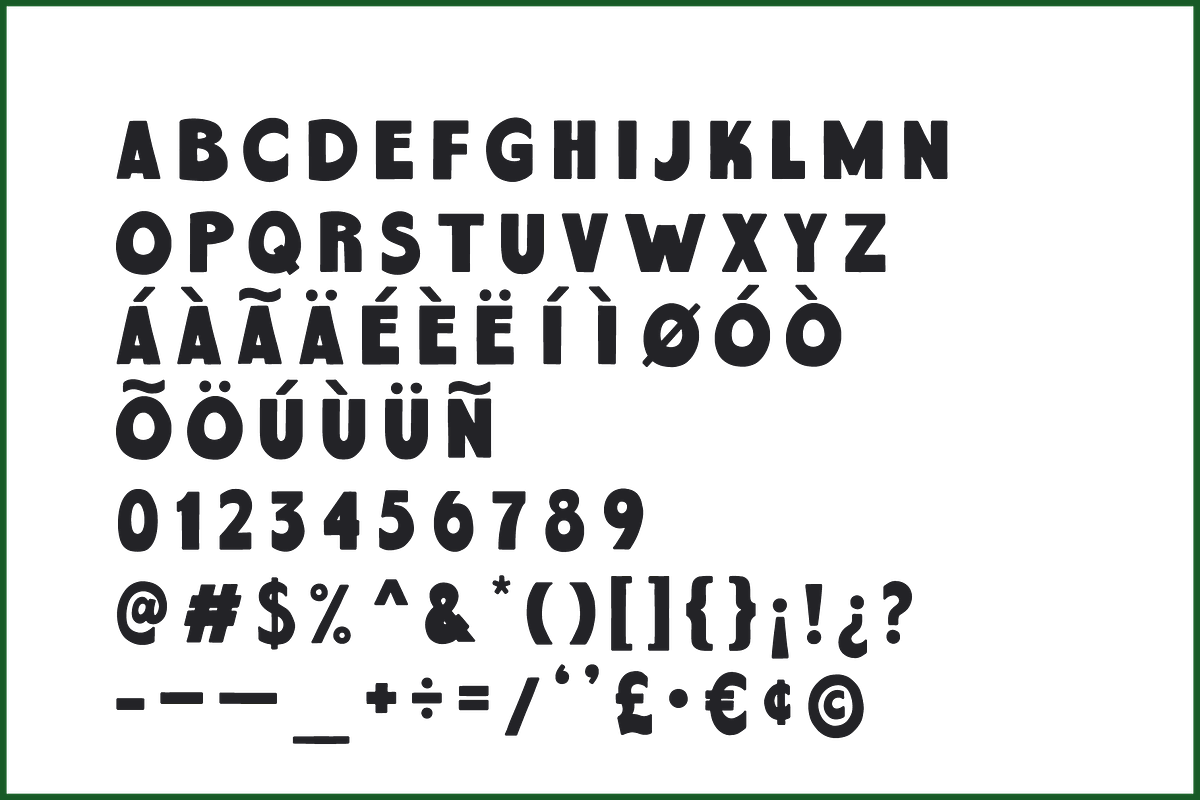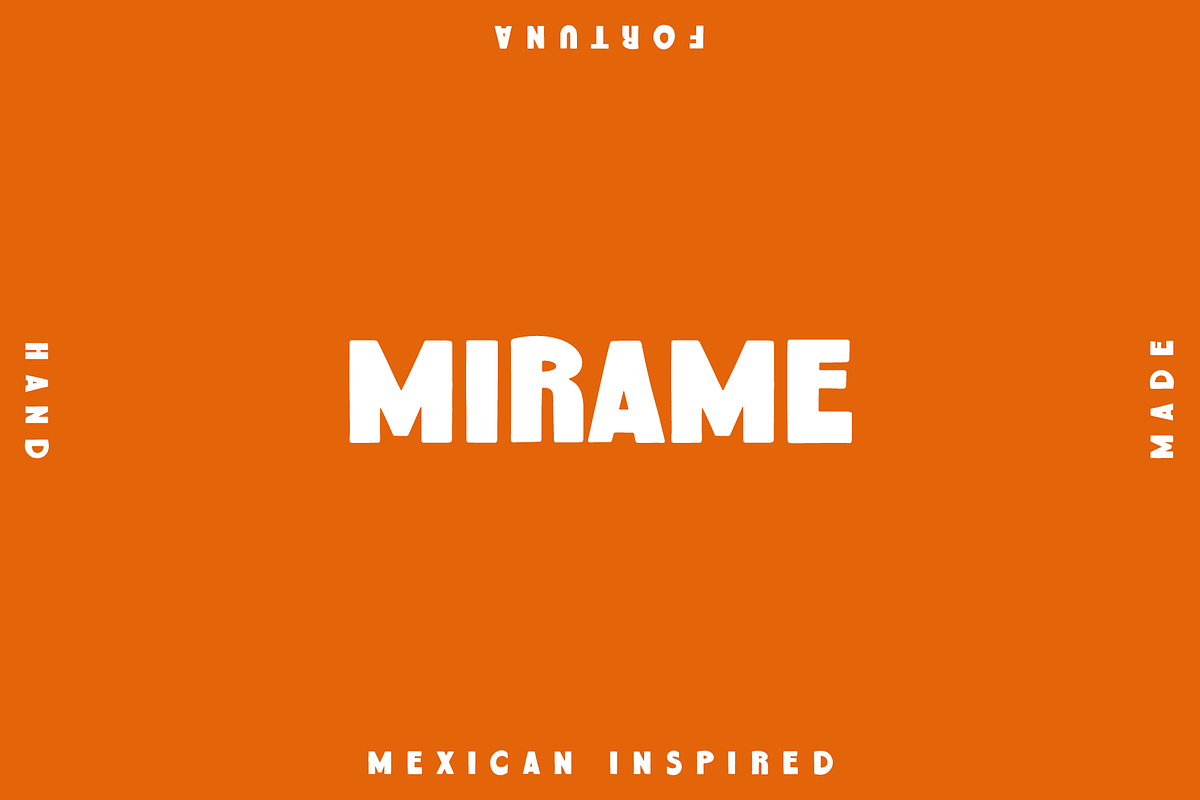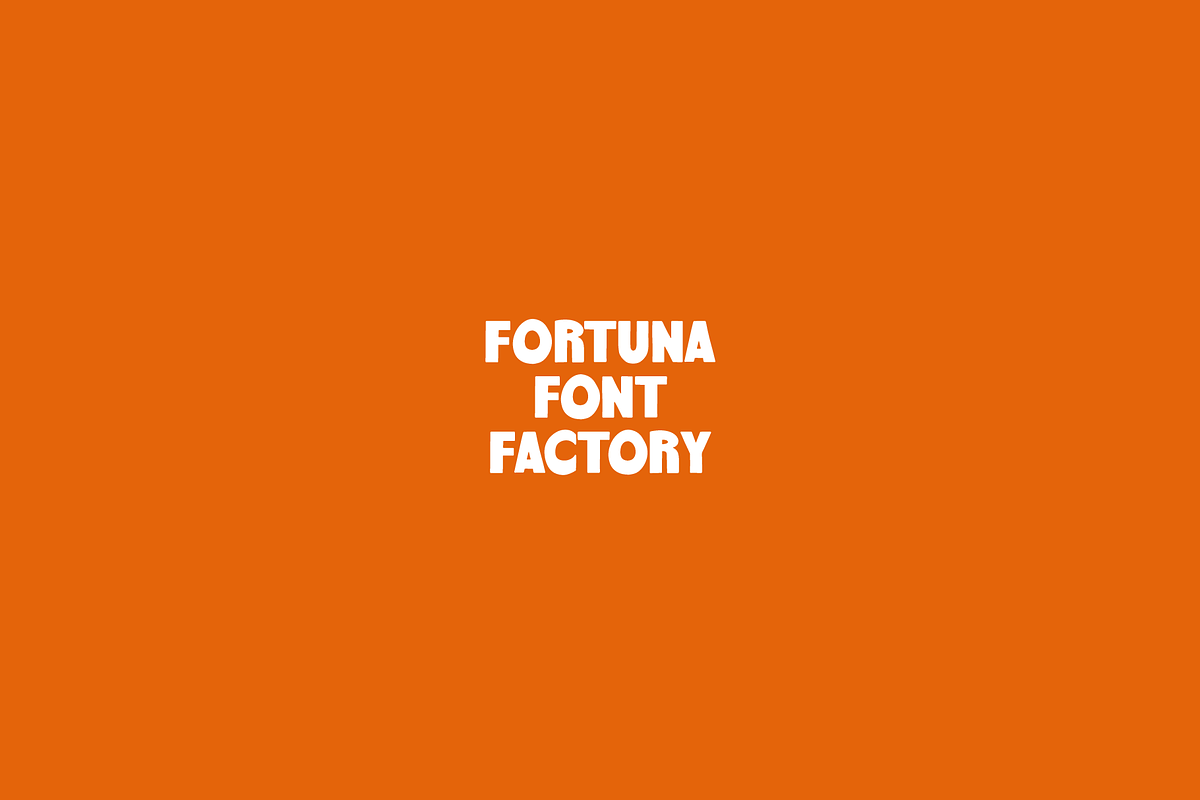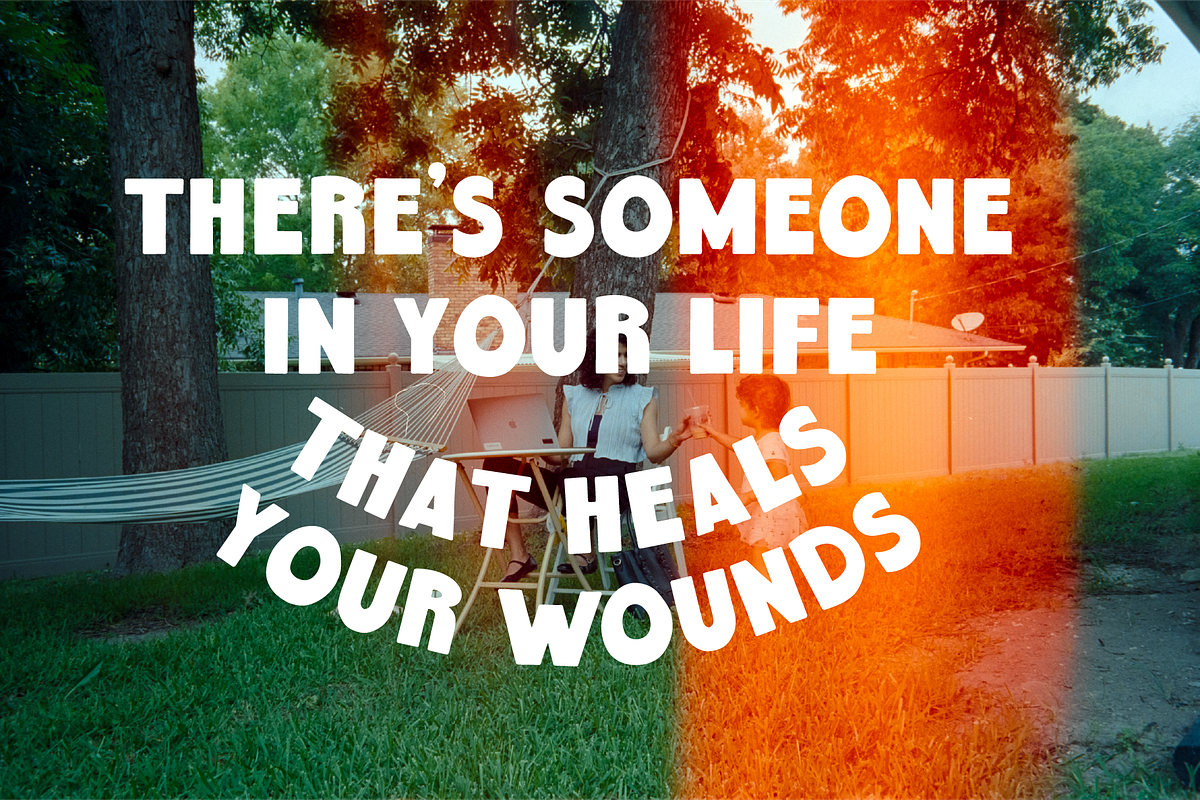
Mírame: Hand Drawn Sans Serif
Mírame takes inspiration from vintage Mexican concert posters.
Bold, thick, and impactful. If you have something to say (significant or not), Mírame will say it loud and proud.